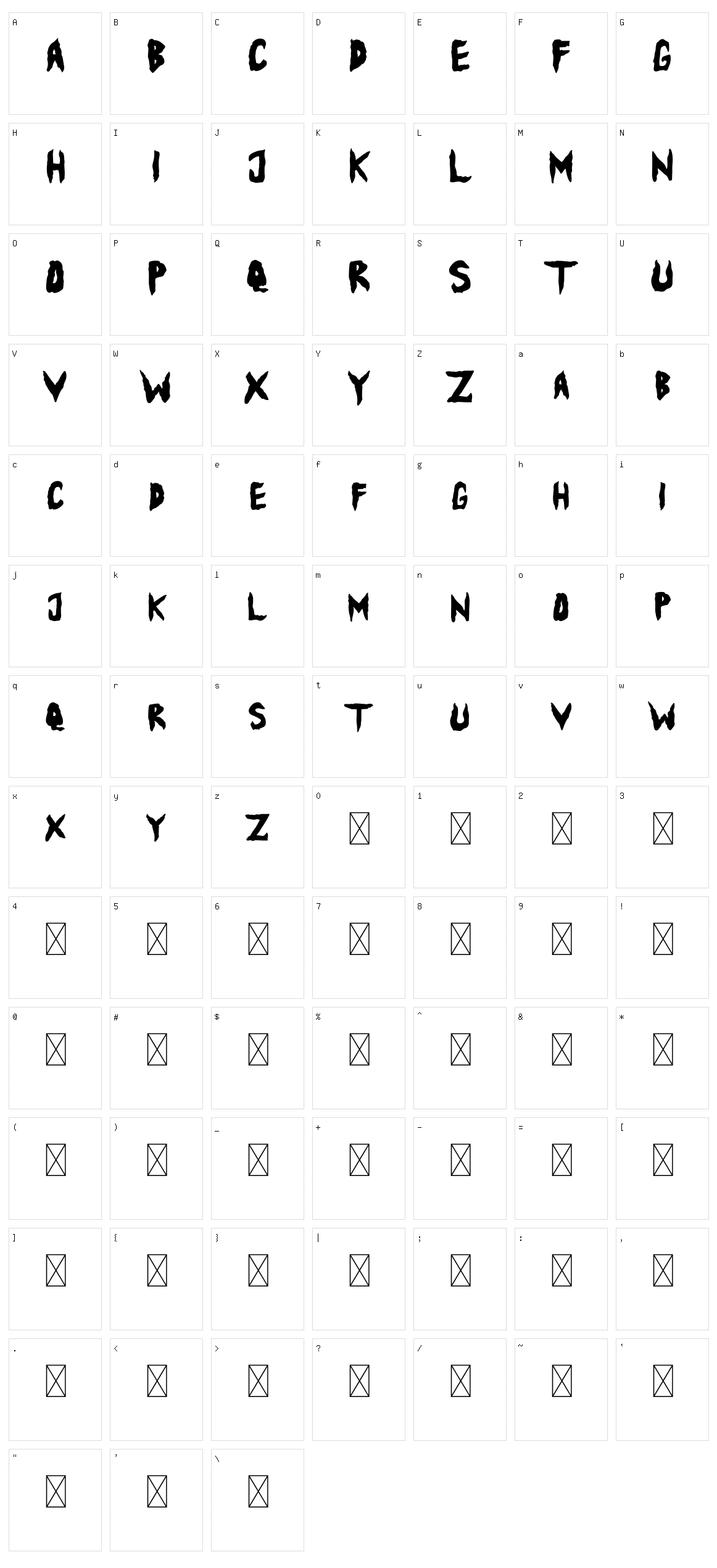
The free font Ballowien is carefully designed by Javatype Studio, showcasing a thoughtful balance of creativity and usability and falls under the Halloween font style. When you download the ZIP file, it contains only 88.75 KB of font files, making it lightweight and quick to download. Please review the license details below to understand permitted usage and distribution rights. If license information is not available, we recommend using this font for personal projects only or contacting the author directly for commercial usage permissions.